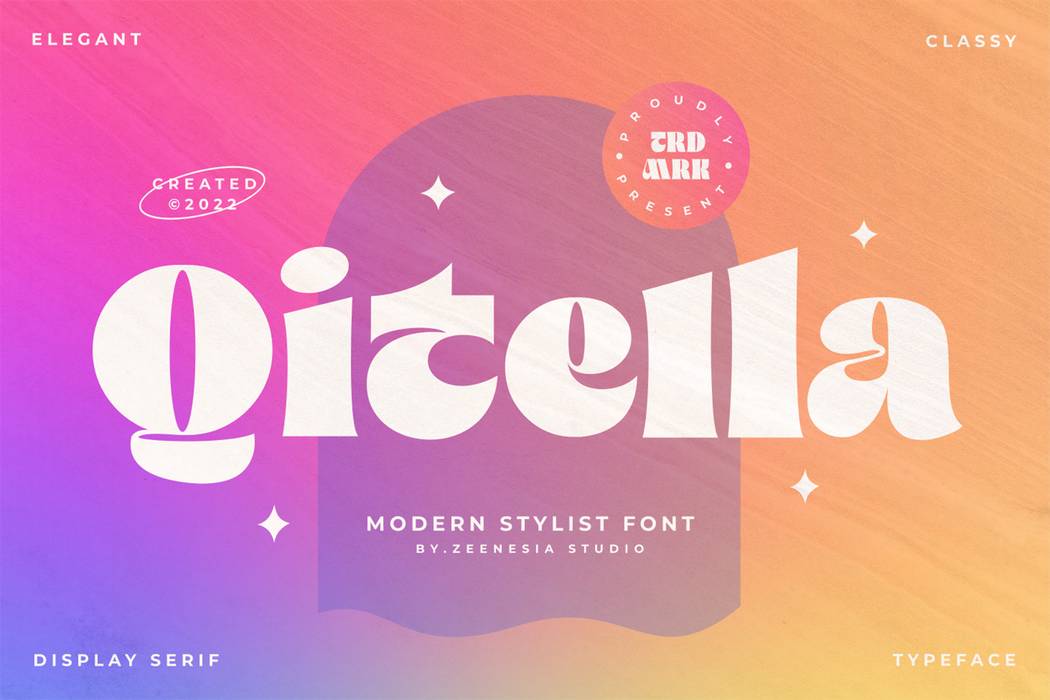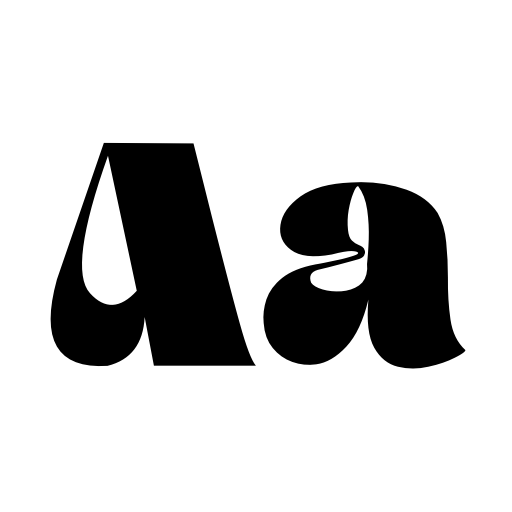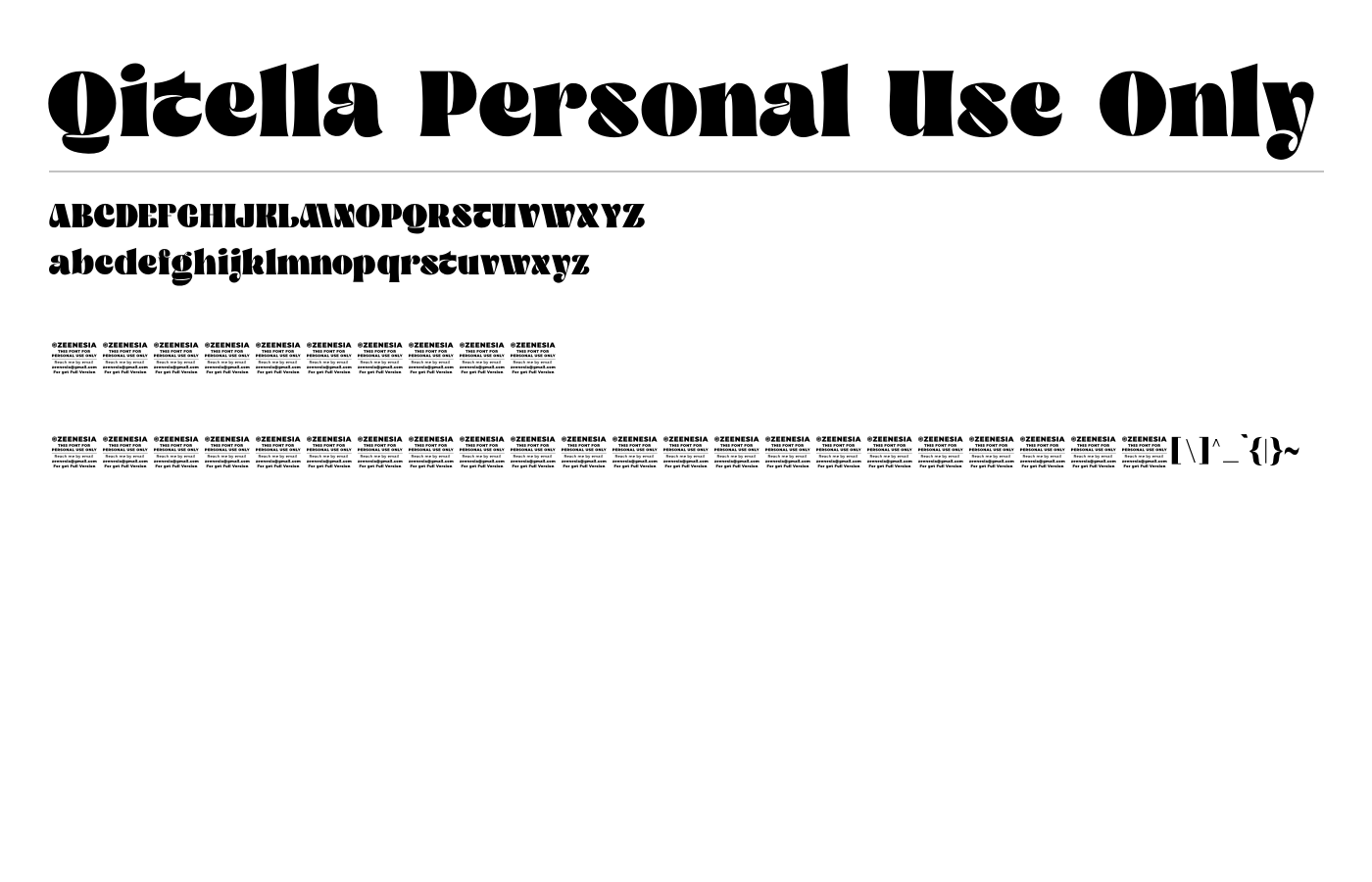
Qitella is a bold, decorative serif font with a strong presence and playful character. Its thick, high-contrast strokes and unique curved terminals make it ideal for creative headlines and branding that seeks to stand out with a vintage yet whimsical flair. This font works best in display contexts like logos, posters, and packaging where personality and impact are key.
About Qitella Font